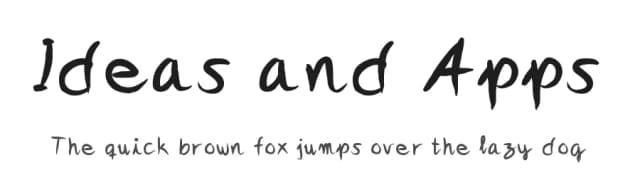
About Little Lara Font
Little Lara is a script & handwritten font designed by Ideas and Apps. It includes 188 glyphs, a medium weight, TTF (TrueType) format, and 201 languages. Little Lara is free to download; check the license details on this page before commercial use. Script & handwritten fonts like Little Lara work best for wedding invitations, greeting cards, signatures, and elegant branding.
Little Lara Font is a script font that shines as a display or heading face. Pair it with a clean sans-serif or serif font for body text β the contrast creates a clear hierarchy while the two styles stay balanced and easy to read.